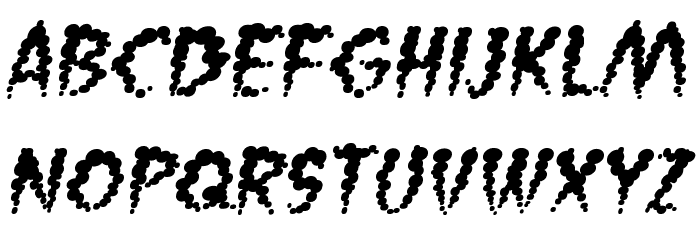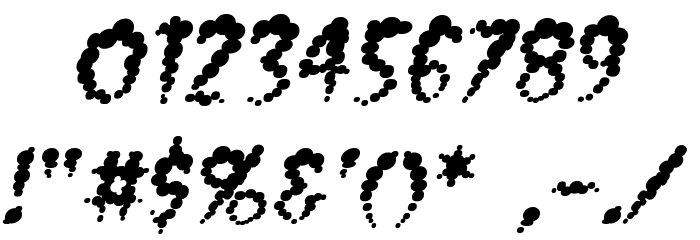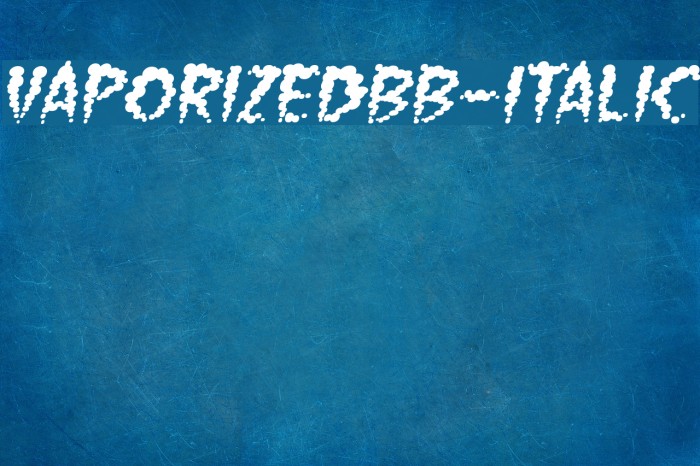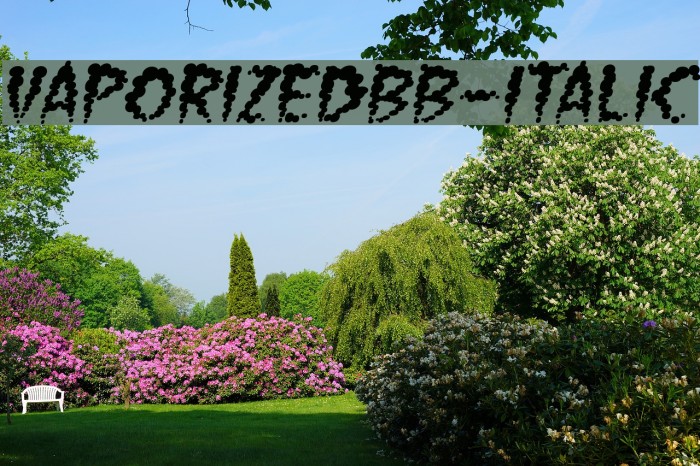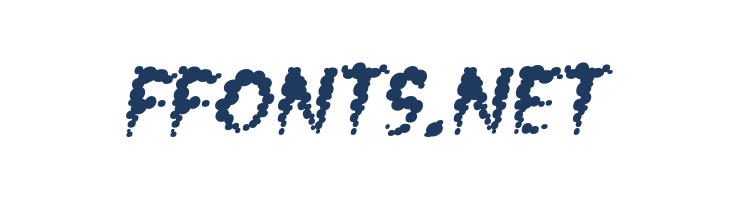
VaporizedBB-Italic Font
This font features a unique and playful design with characters composed of small, circular dots that create a vaporized effect. The letters are slightly slanted, giving an italicized appearance, and the overall look is dynamic and energetic. The font maintains a consistent pattern across uppercase, lowercase, numbers, and special characters, making it visually cohesive. Its dotted style adds a sense of movement and texture, making it stand out in any design project. The font's whimsical nature makes it suitable for creative and informal applications.
A playful, dotted font with an italicized, vaporized effect.
- Proposed Projects: Ideal for creative projects such as posters, children's books, party invitations, and branding for playful or whimsical products.